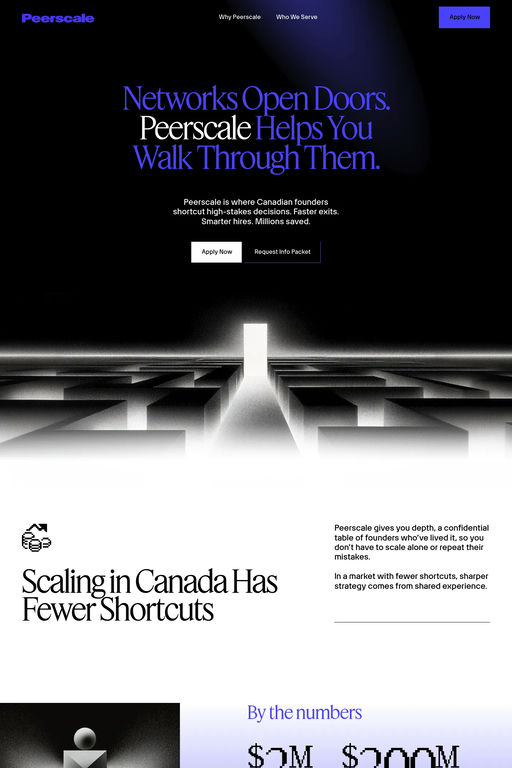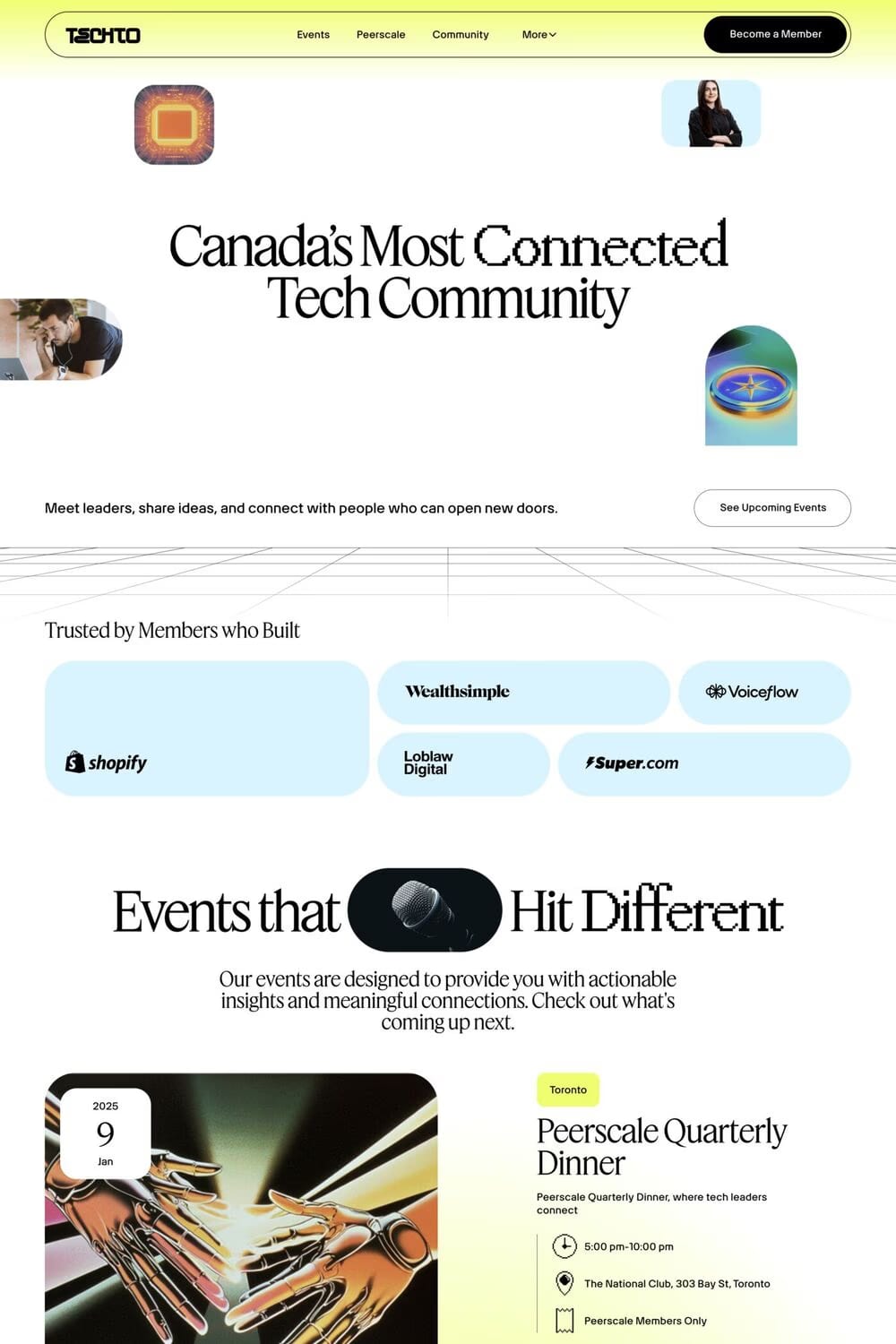
Artex is a sans-serif typeface from Optimo.
Bringing the neo-grotesque program into the realm of variable fonts, Artex is an innovative typeface designed by Valentin Brustaux. With its simplified forms tempering strict geometry, Artex proposes a distinctive graphic language in which modern efficiency meets contemporary technology.